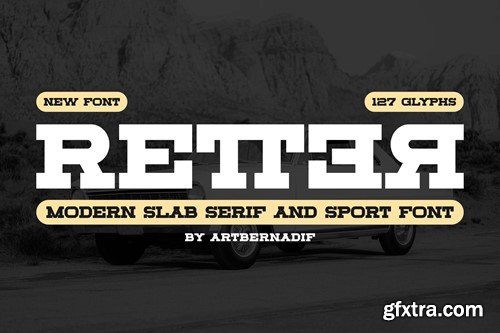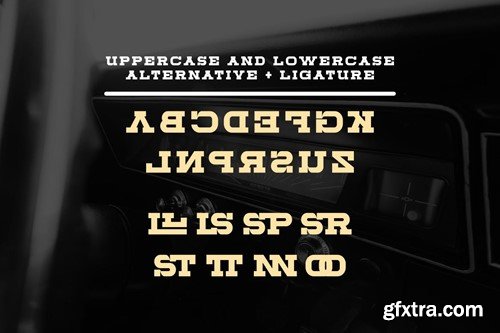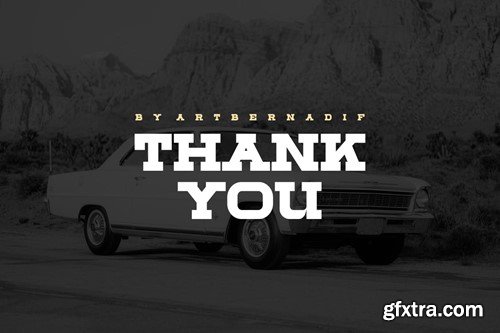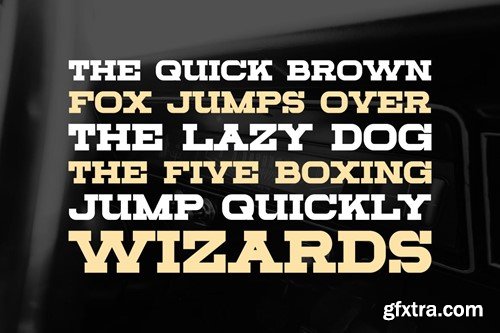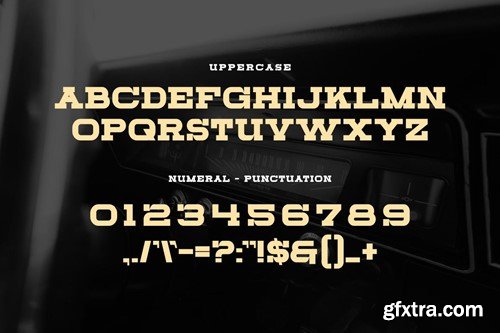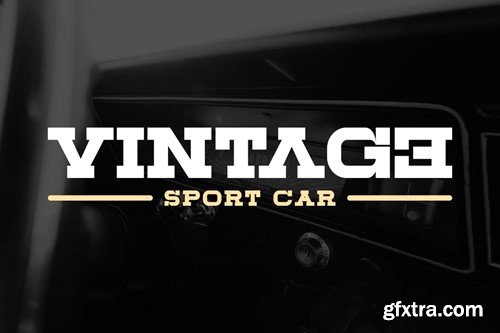
现代 Slab Serif 和 Sport 字体 C8QWF8K
Retter - Modern Slab Serif And Sport Font C8QWF8K
Retter - Modern Slab Serif And Sport Font
Introducing our new product Retter Font Modern Slab Serif And Sport Font
Retter Font Modern Font is a bold and authentic display font. The font is suitable for any branding project like logo, t-shirt printing, esport, and many more. outstanding in a wide range of contexts.
• Retter Uppercase
• Retter Alternative
• Retter Ligature